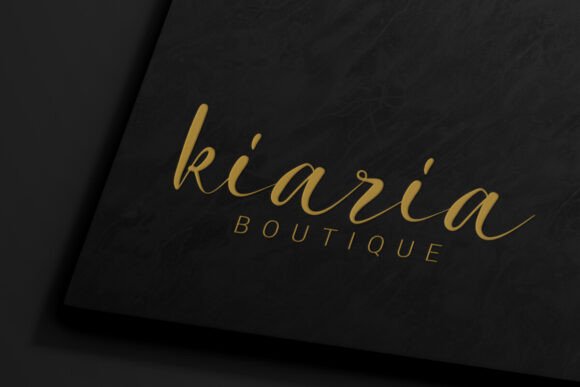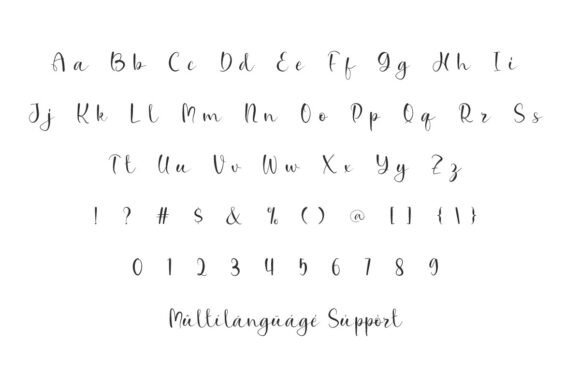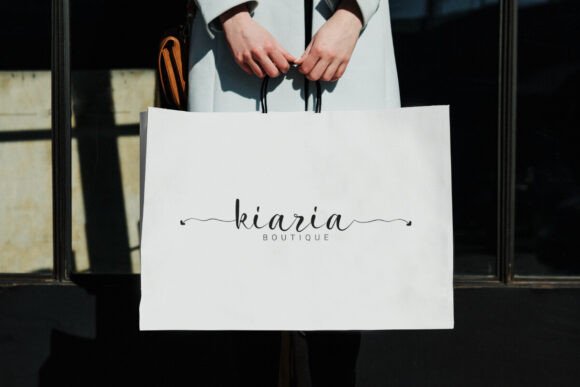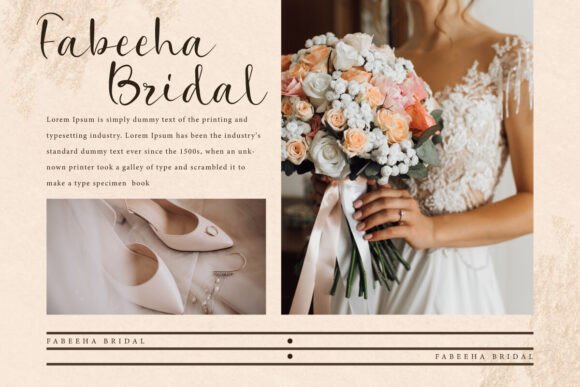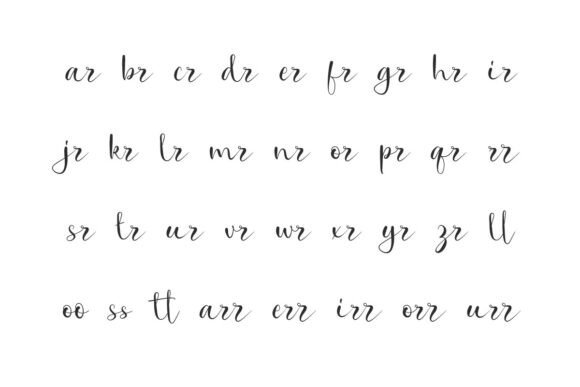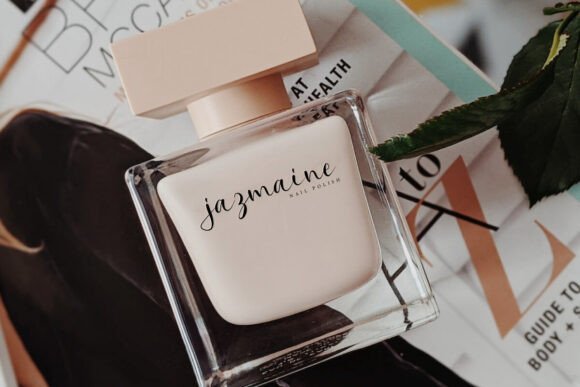
Introduction to Serandani Font
Have you ever stumbled upon a font that makes your design come alive? For me, it was the moment I discovered the Serandani Font – a beautiful script font with a calligraphy style that adds a touch of sweetness to any project. I was working on a beauty content design and needed a font that would complement the elegance of the images. As I browsed through my design resources, the Serandani Font caught my eye, and I knew I had to try it out.
With its high-quality design and transparent background, the Serandani Font is a valuable resource for designers looking to elevate their creative projects. Whether you’re working on an advertisement, beauty product packaging, or a wedding invitation, this font is sure to add a touch of sophistication and charm.
As a designer, I can attest that finding the right font can make all the difference in bringing a design to life. And with the Serandani Font, you can take your designs to the next level with its beautiful script style and high-quality design.
Key Features of Serandani Font
- Designed with a high resolution of 300 DPI, ensuring crisp and clear text display even at larger sizes.
- Perfect for use in creative projects such as logos, branding materials, and digital art, where a distinctive and eye-catching font is required.
Honest Review: Serandani Font
As a designer, I’m always on the lookout for high-quality design resources that can elevate my creative projects. Recently, I stumbled upon the Serandani Font, and I’m excited to share my honest review with you.
- ✨ Beautifully crafted characters with a unique, cursive design
- ✨ Highly legible, even at small font sizes
Unfortunately, I did encounter a few limitations:
- ⚠️ Not ideal for projects requiring a transparent background, as the font’s design may not display well over complex backgrounds
Tips for Getting the Most Out of Serandani Font
Experiment with different font sizes, colors, and styles to achieve the desired effect. Use the font in combination with other design elements to create a unique and eye-catching design. Don’t forget to save your design with a transparent background for maximum flexibility.
Common Use Cases for Serandani Font
The Serandani Font is perfect for creating social media graphics, presentations, reports, and documents. Its high-quality design and versatility make it an ideal choice for designers, artists, and hobbyists working on creative projects.